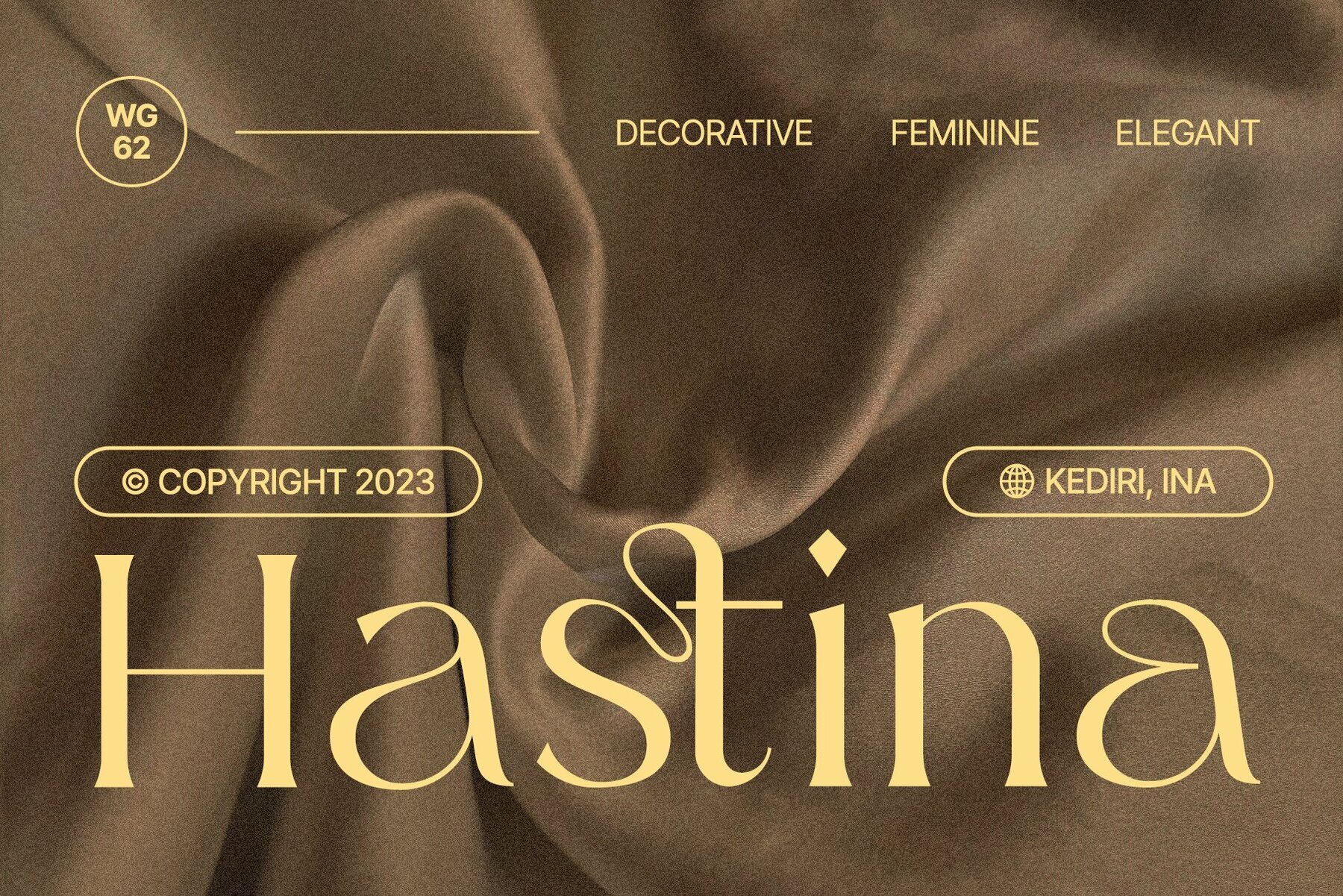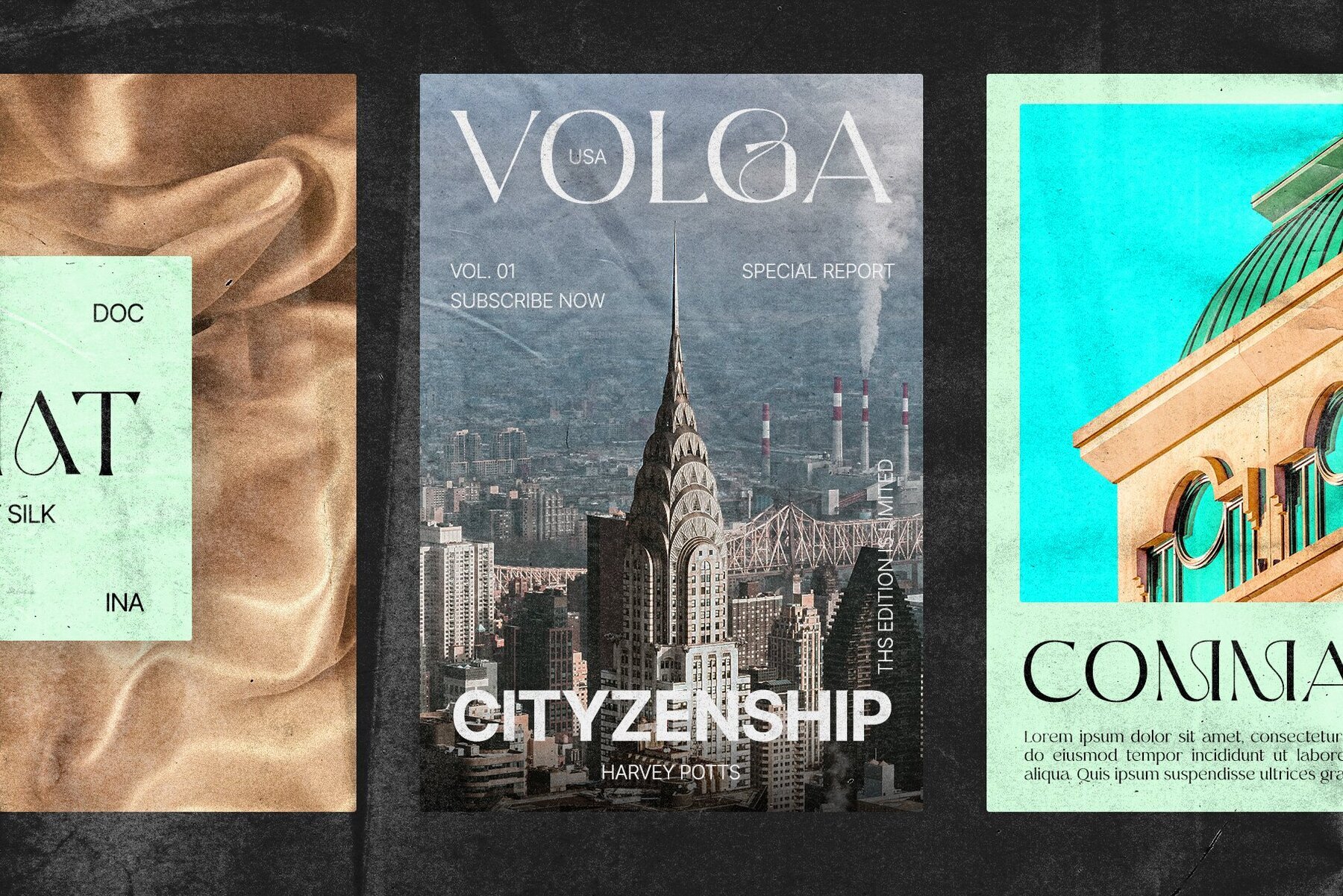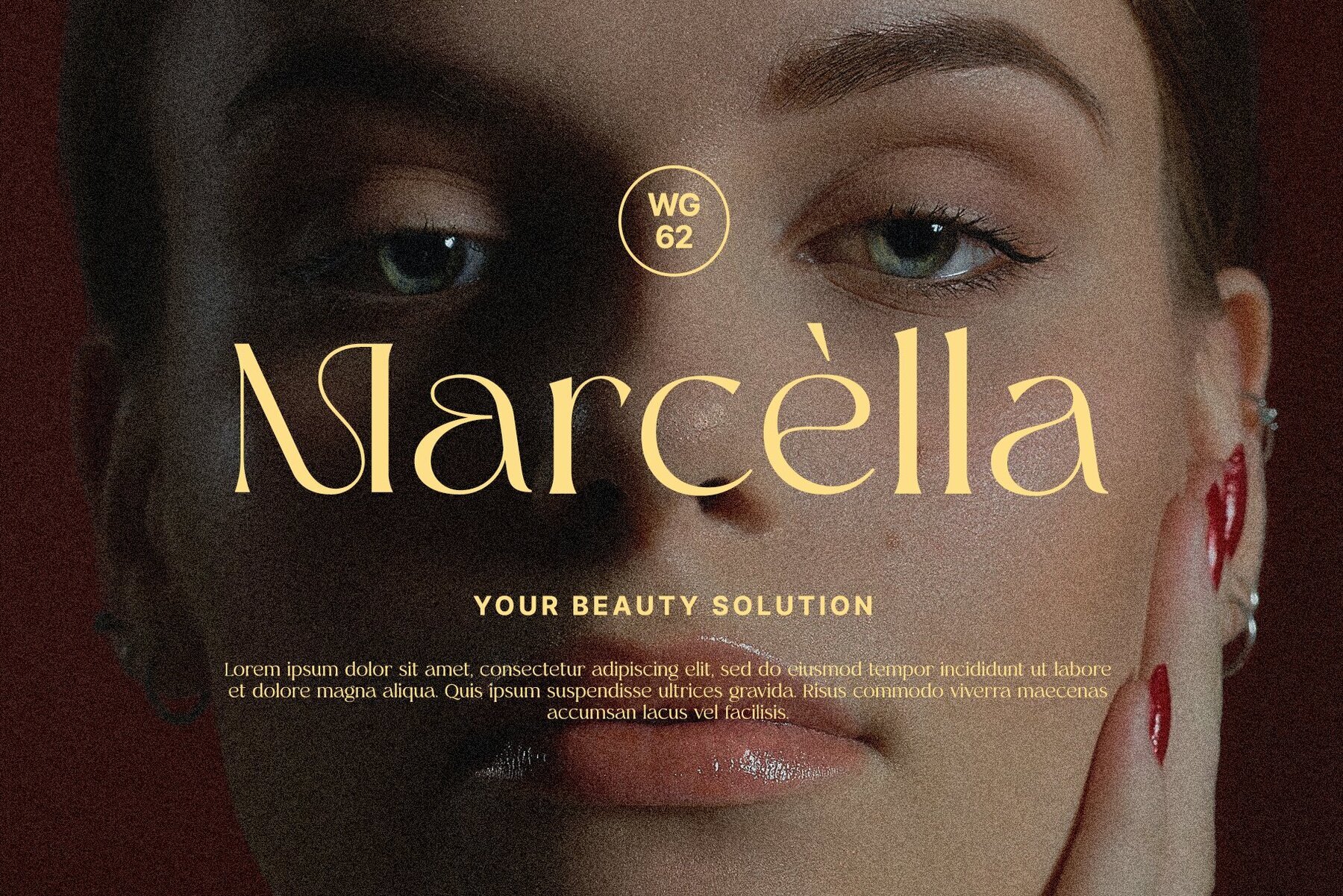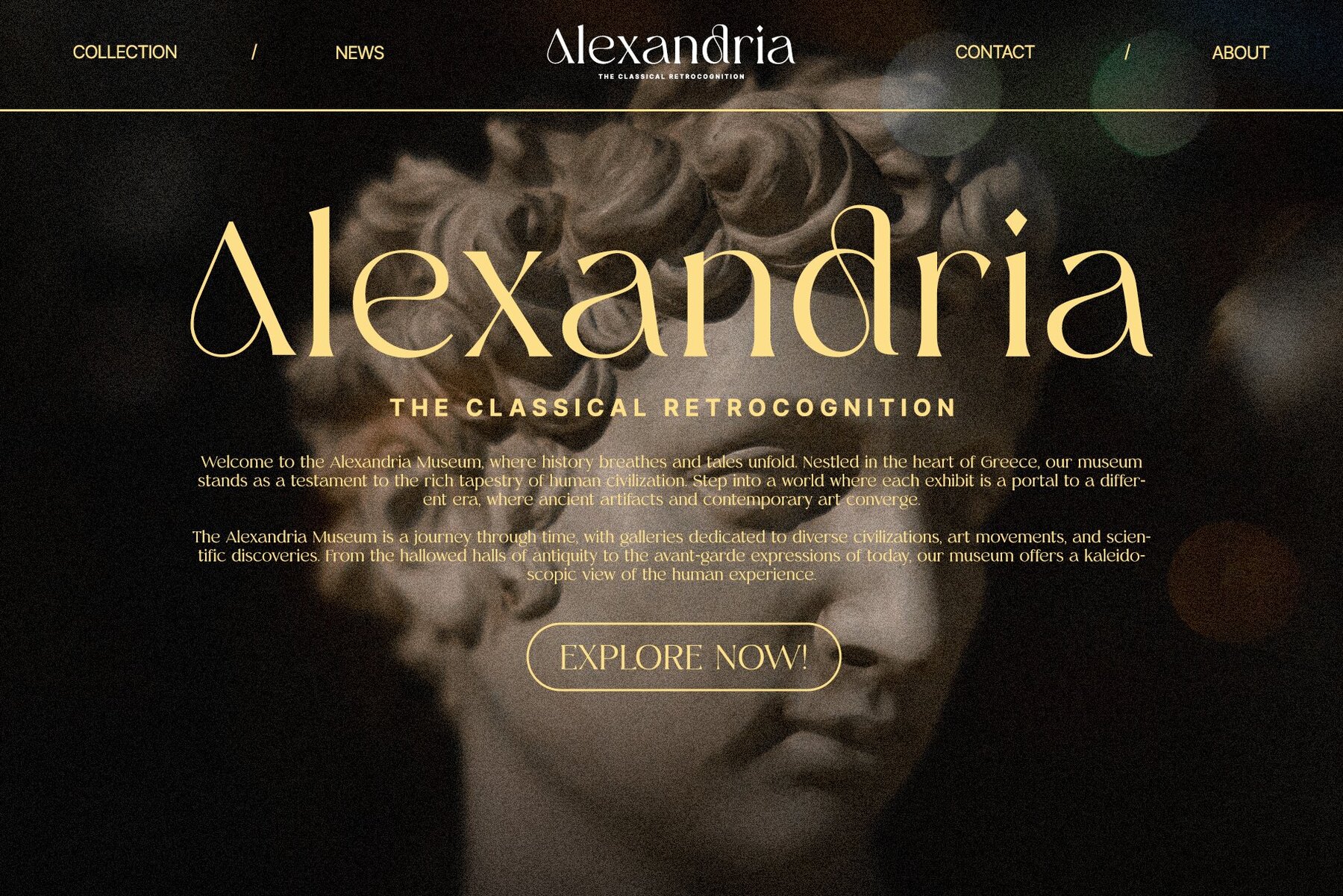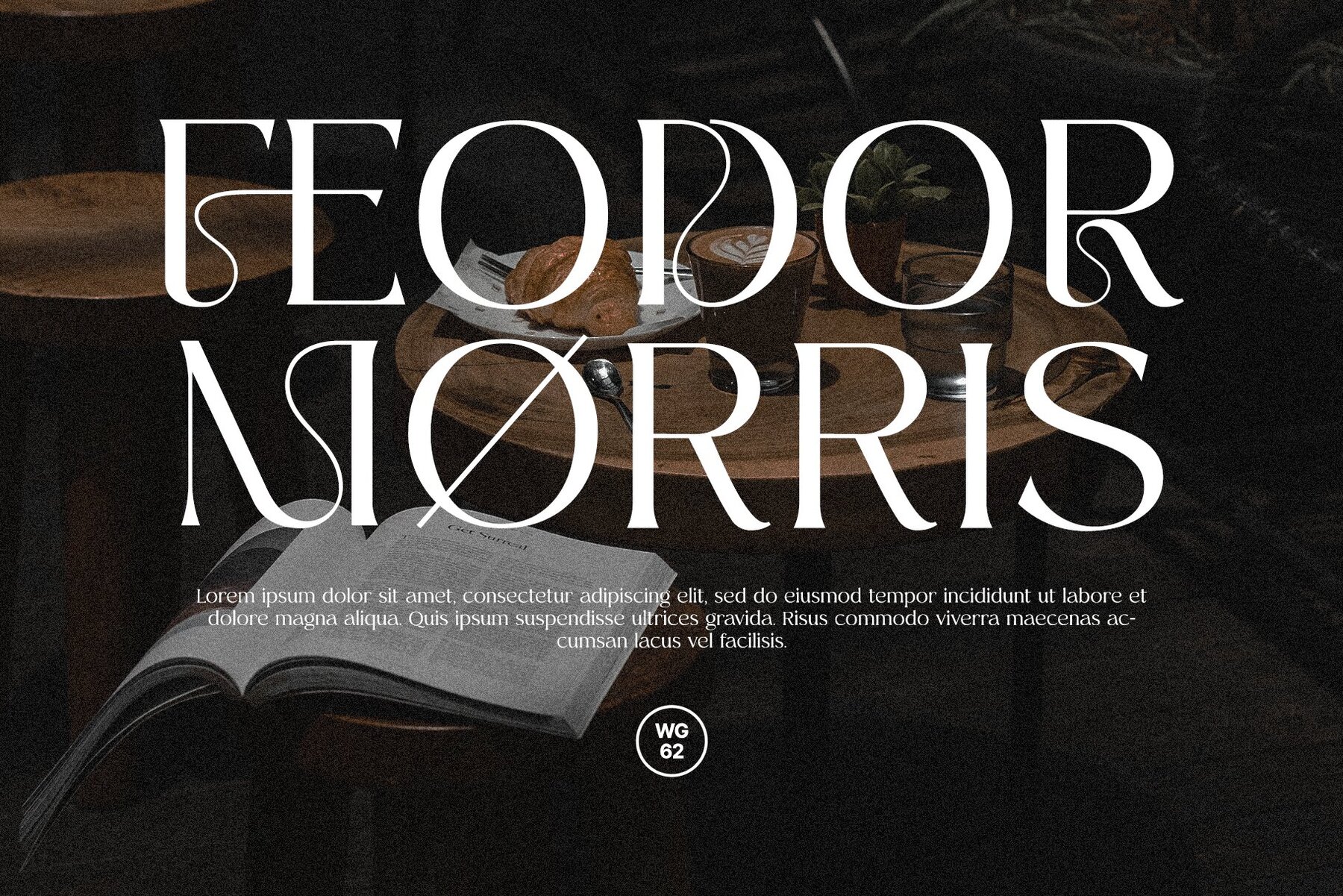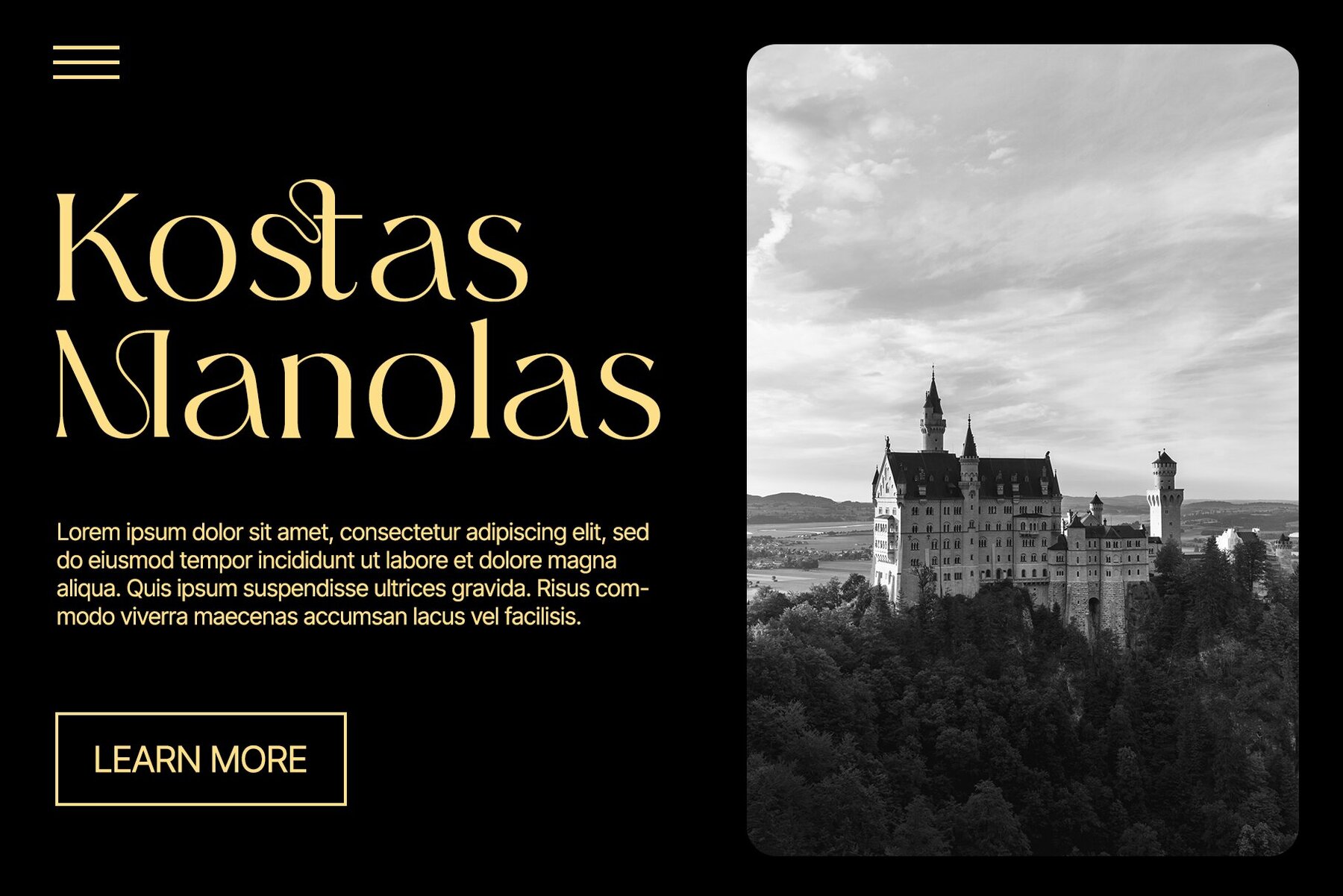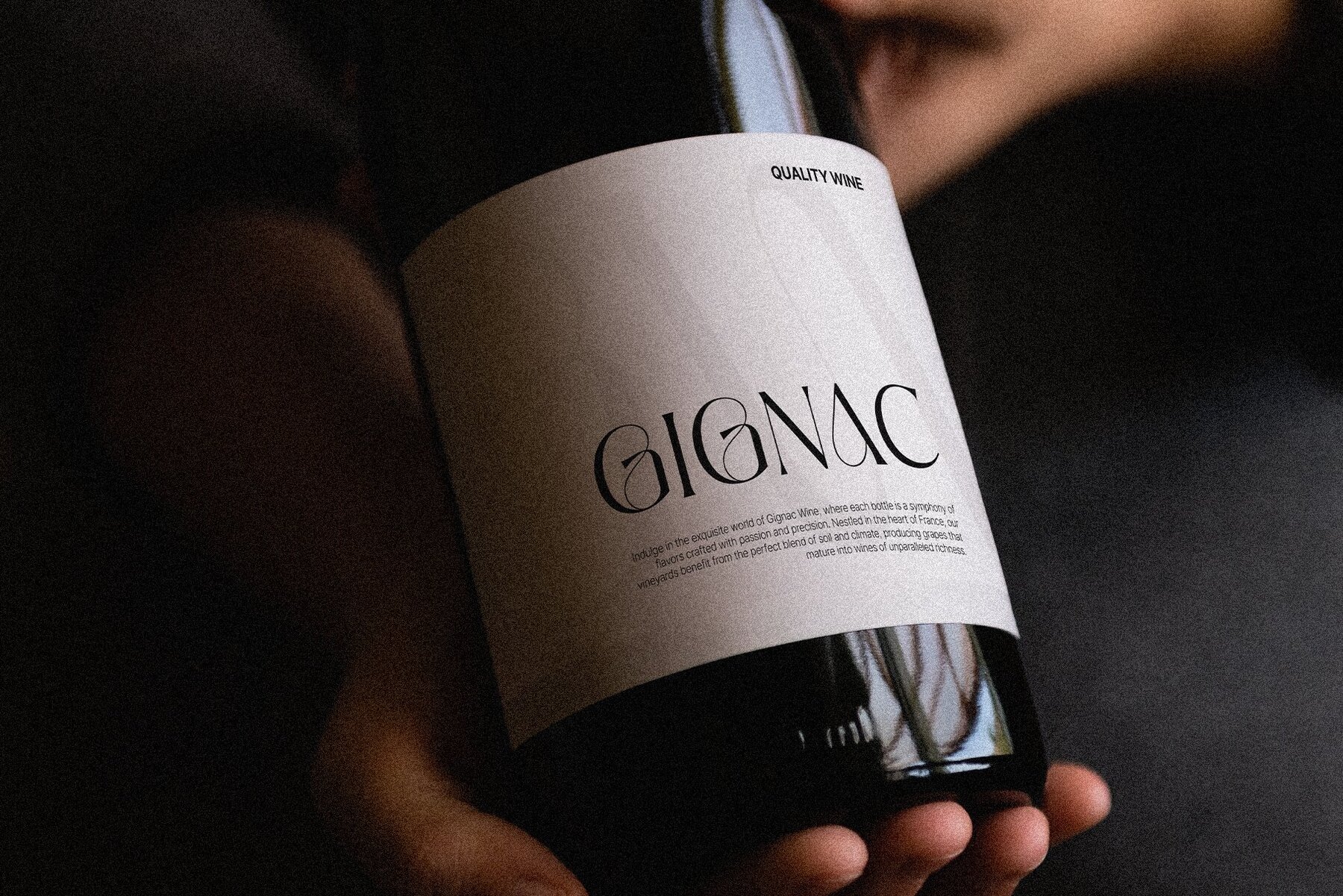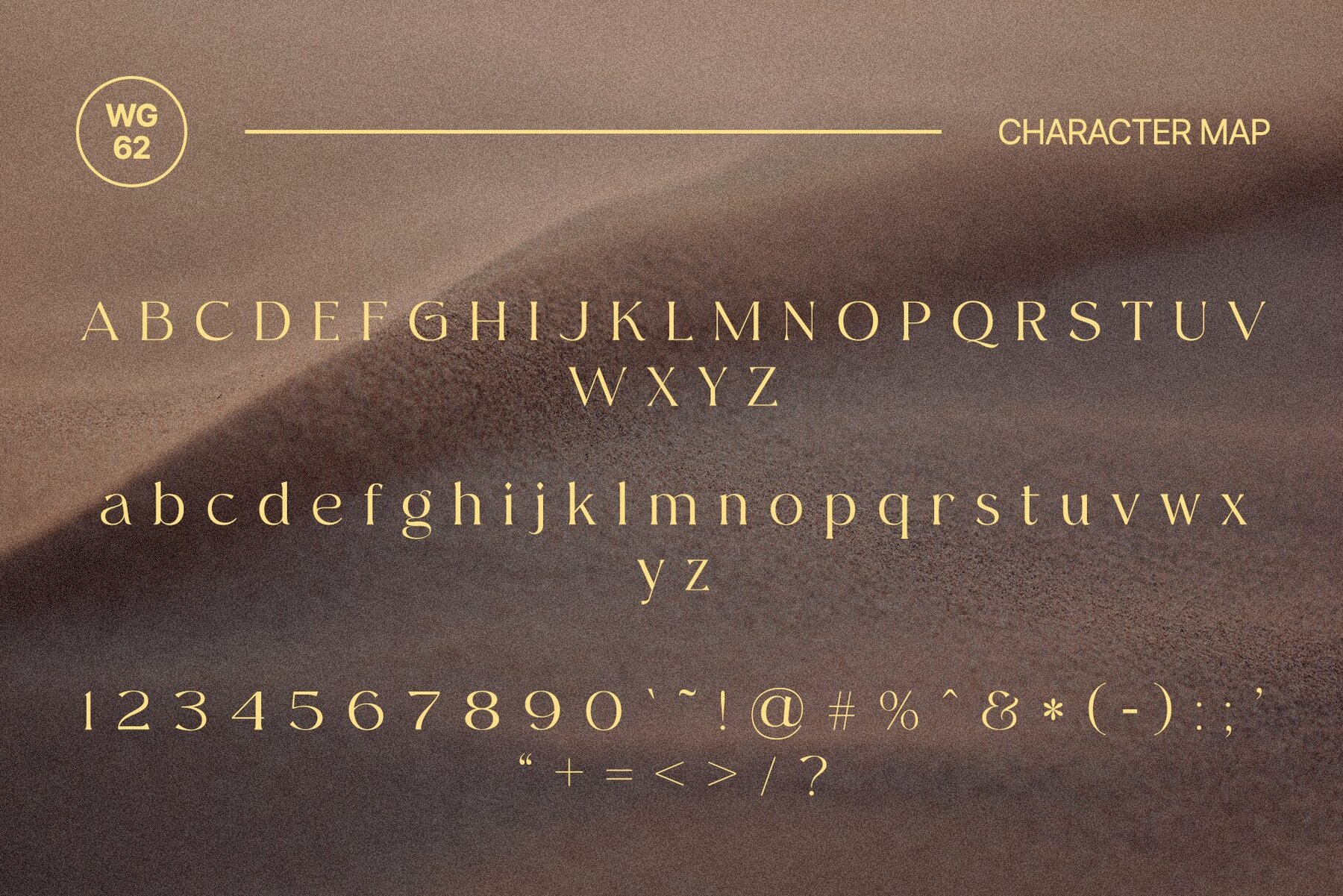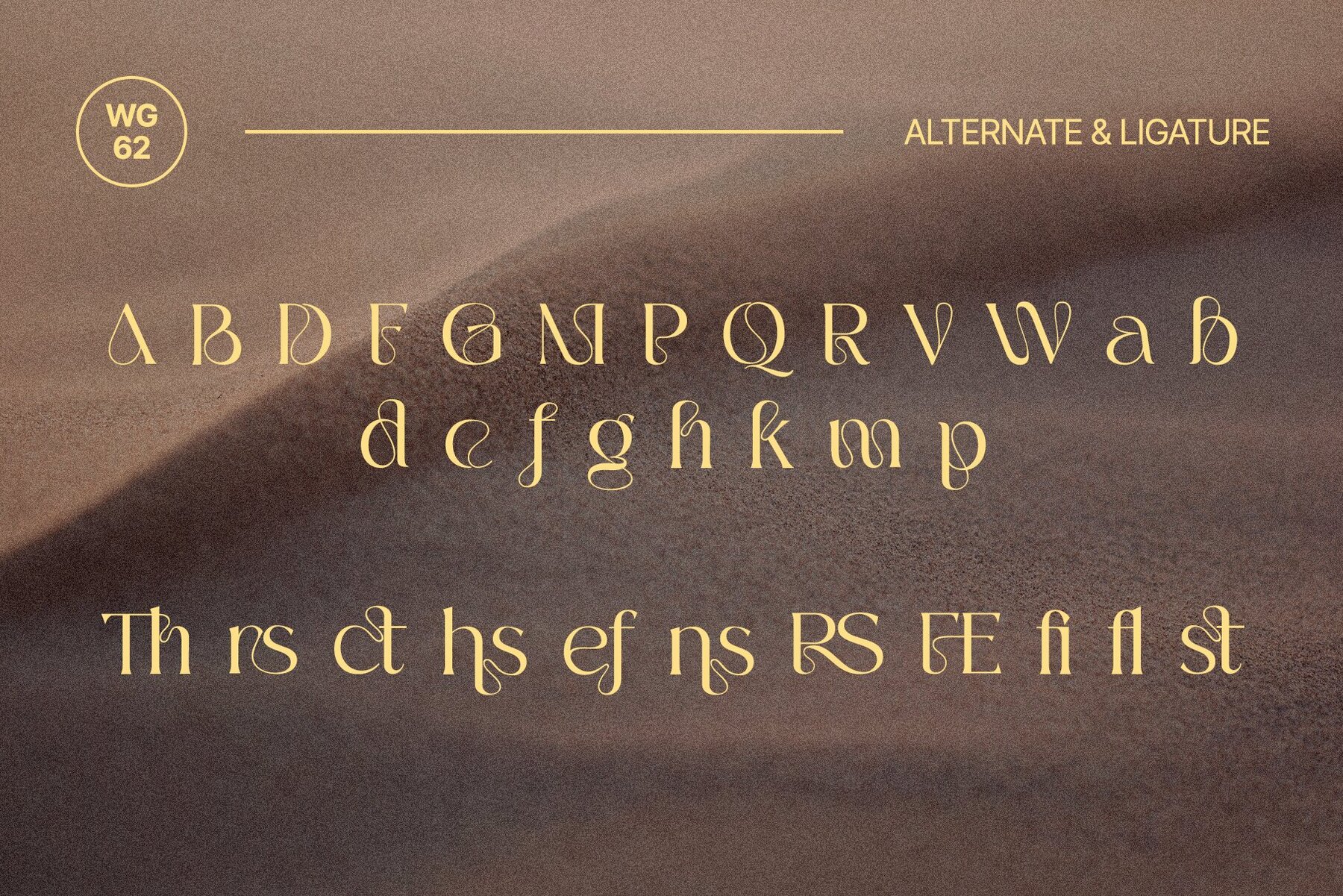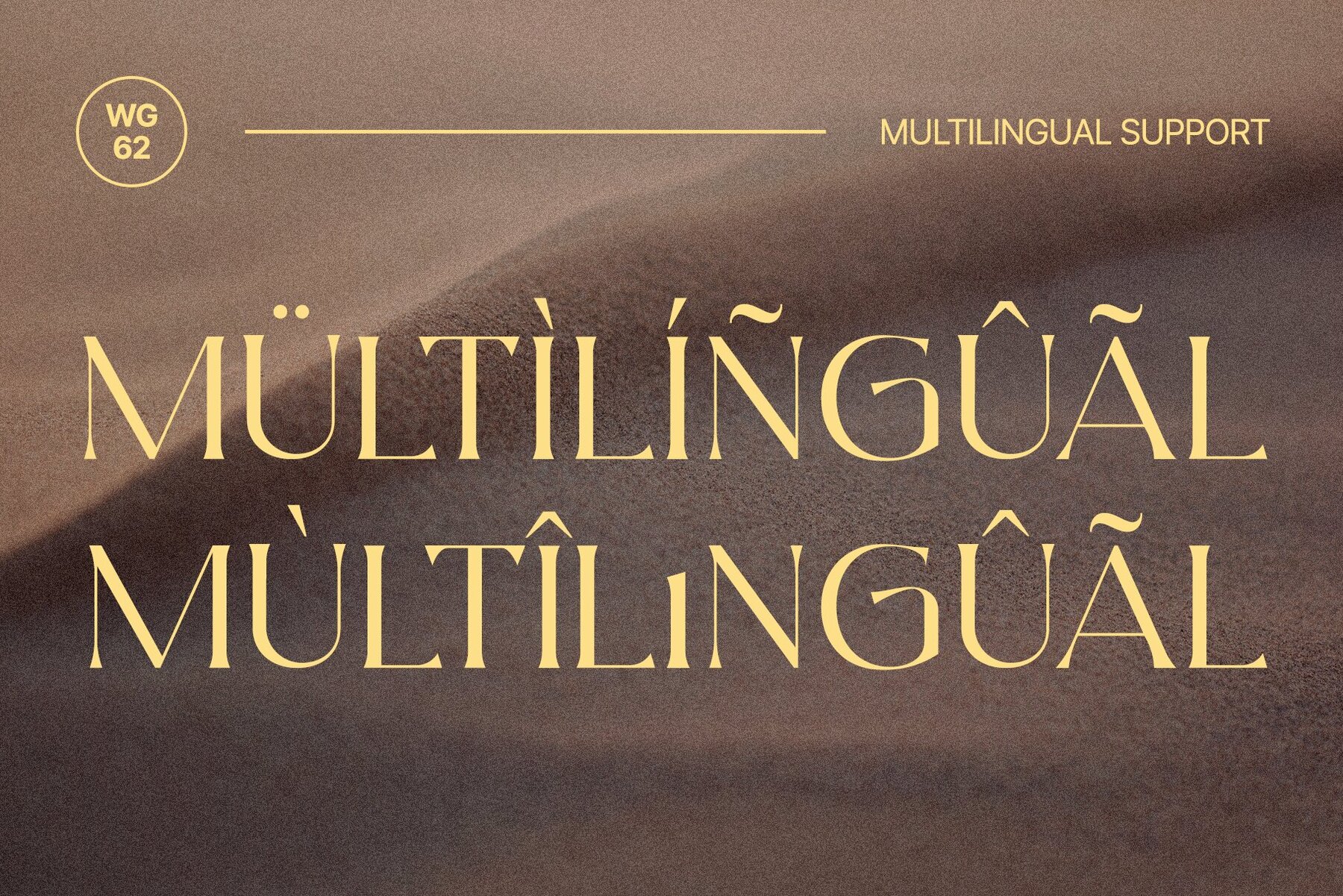
Hastina Font
Hastina Regular
Hastina is a beautifully crafted handwritten font, known for its flowing and elegant style. With a varying baseline and smooth lines, it exudes charm and grace. This font includes stunning alternates, making it ideal for adding a personal and inviting feel to your designs, from wedding invitations to business cards. Overall, Hastina is a versatile and beautiful handwritten font, perfect for creating designs that convey a personal and inviting atmosphere.Hastina: Elegant Handwritten Font for Personal Touches